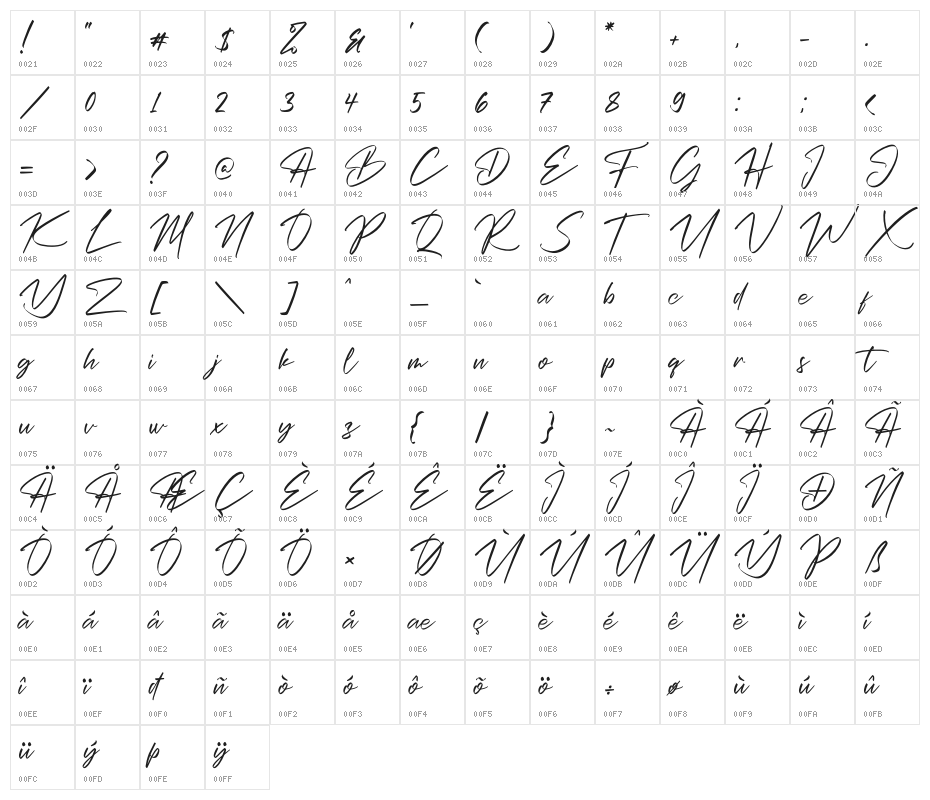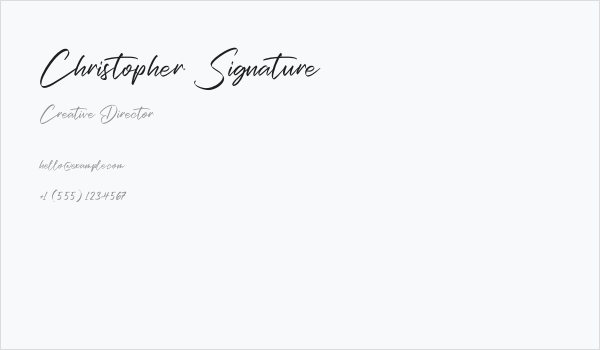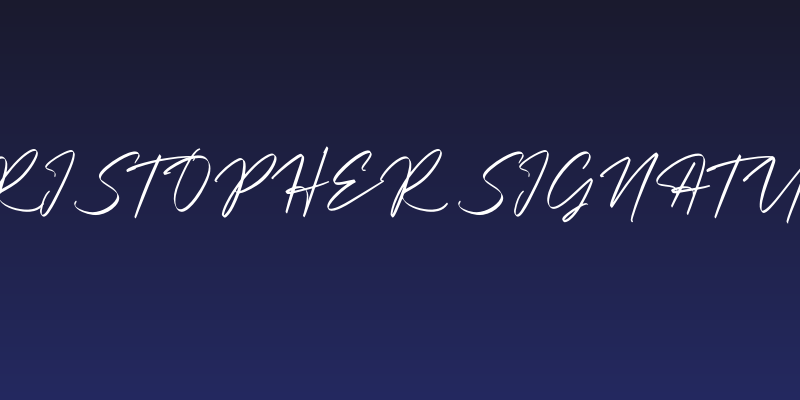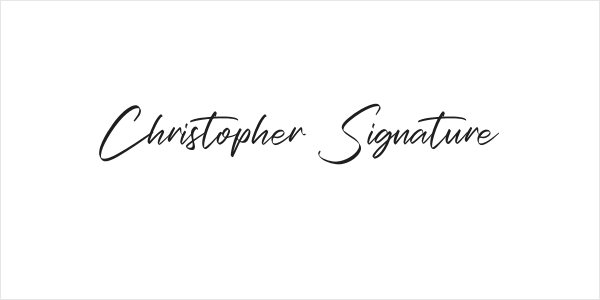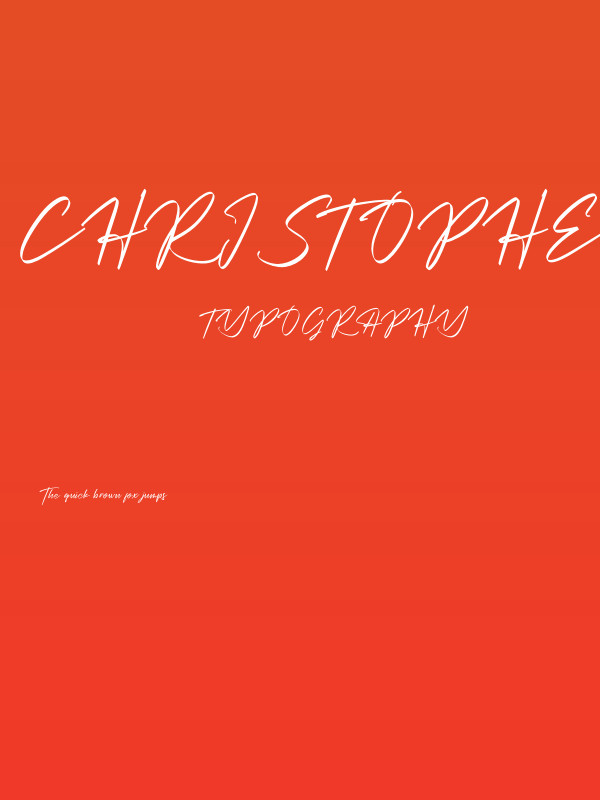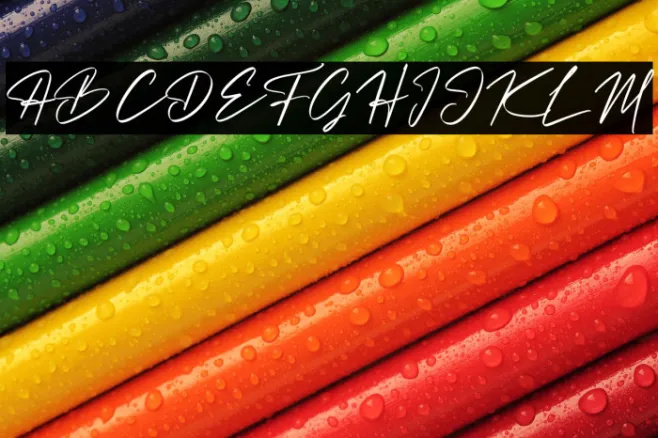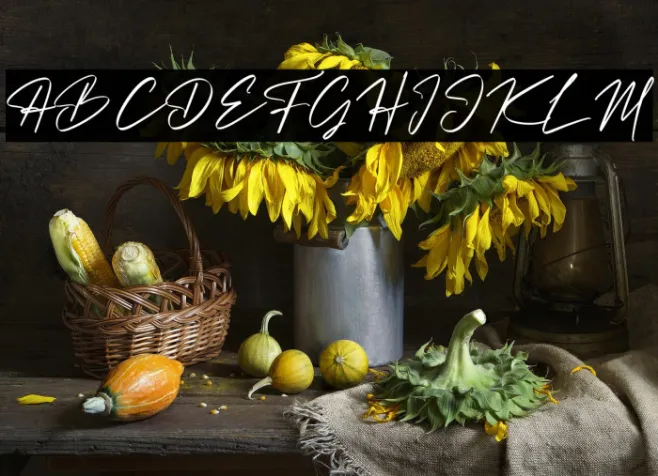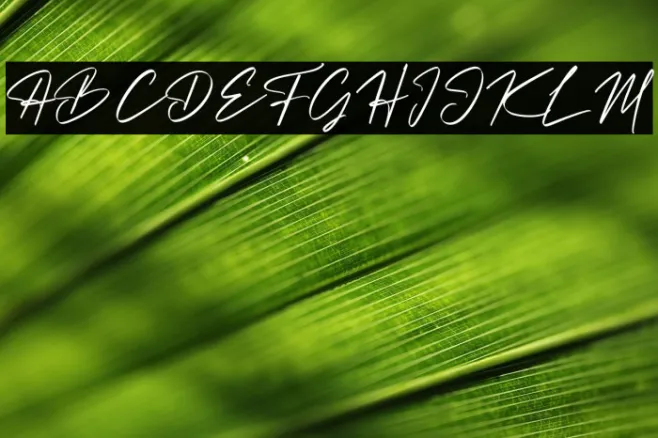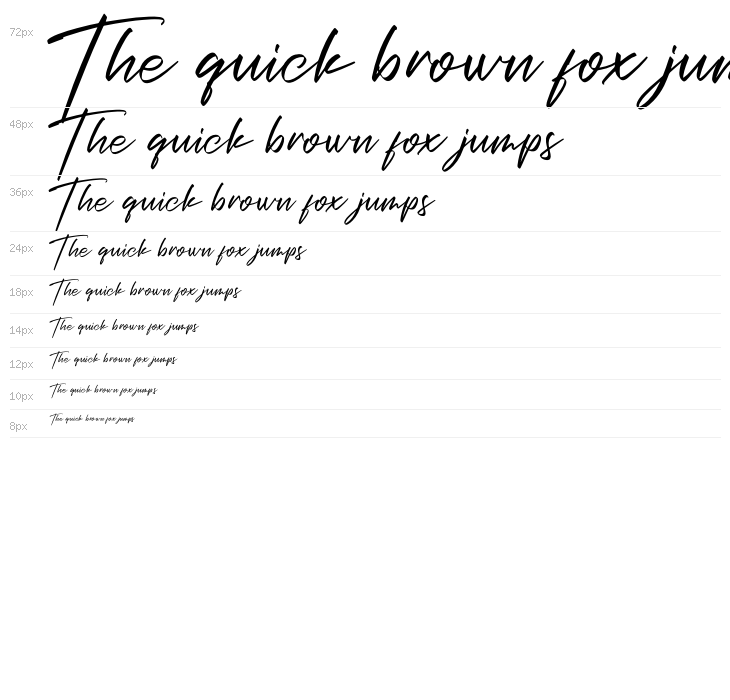
Christopher Signature Font
Christopher Signature Description
This font exudes a personal and artistic flair, reminiscent of a handwritten signature with a modern twist. The uppercase letters are elegantly elongated with smooth, flowing lines, while the lowercase characters maintain a consistent fluidity, enhancing the script's natural and organic feel. The numerals are crafted with the same attention to detail, ensuring they blend seamlessly with the alphabet. Special characters are thoughtfully designed to complement the overall aesthetic, making this font versatile for various creative applications. Its unique style is perfect for adding a personal touch to any project.
| Proposed Projects | Ideal for wedding invitations, personal branding, logos, and greeting cards. |